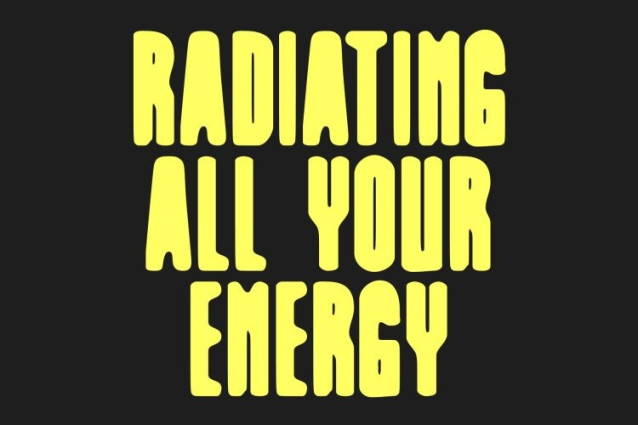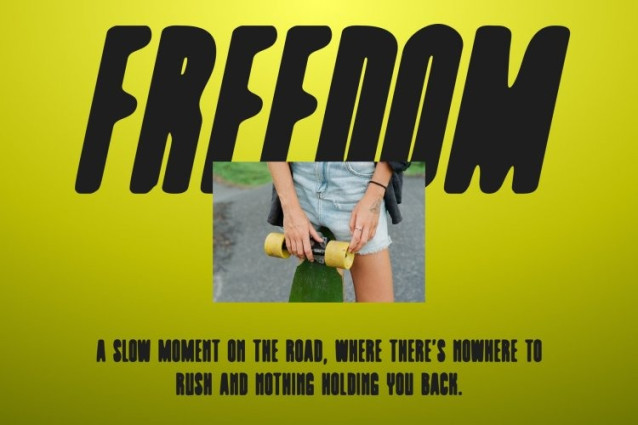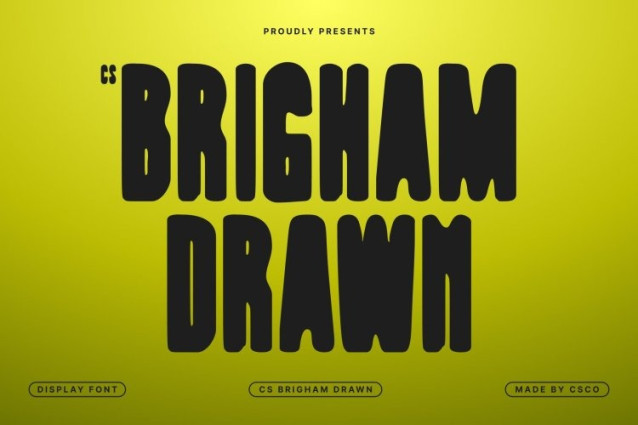
CS Brigham Drawn Font
CS Brigham Drawn Font This is a modern sans serif font with bold, tightly constructed letterforms enhanced by a subtle drawn texture. Its condensed shape maximizes space efficiency while maintaining visual clarity, making it perfect for headlines, titles, and high-impact layouts where every inch counts.
Bold with a Handcrafted Touch
Combining sleek, contemporary forms with a hand-drawn effect, conveys confidence and professionalism while adding a hint of creative personality. Its slim yet powerful strokes give designs a clean visual identity with a handcrafted, approachable edge.
High Readability Across Multiple Formats
Even with its drawn style, maintains excellent legibility in both print and digital formats. From posters and websites to product packaging and social media graphics, this font ensures your message is clear, precise, and visually engaging.
Ideal for Modern Branding and Creative Projects
This font is perfect for brands and designers seeking a bold, minimalist font with a handcrafted touch. Its clean structure, professional tone, and subtle drawn texture make it a versatile choice for modern branding, editorial design, and high-impact visual communication.